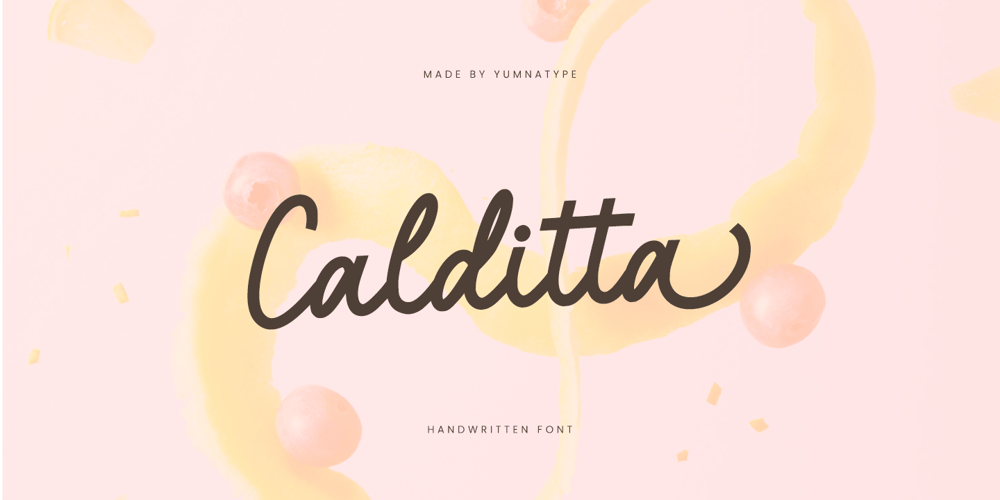
Calditta Font Family was designed by Donis Miftahudin and published by Yumna Type. Calditta contains 1 styles and family package options. Calditta is a charming handwritten font that brings a sense of warmth and personality to your designs. With letters delicately connected to each other, Calditta exudes a sense of fluidity and continuity, creating a seamless flow of text that captivates the eye.Crafted with consistent proportions, Calditta maintains a sense of balance and harmony throughout every stroke. Each letter is meticulously designed to maintain its connection with its neighboring characters, ensuring a cohesive and unified appearance across the entire text.Adding to its unique charm, Calditta features swinging ends at some letter terminals, giving it a whimsical and playful touch. These subtle details add a sense of movement and dynamism to the font, further enhancing its handwritten charm. In addition, enjoy the features here.Features: Ligatures Stylistic Sets Multilingual Supports PUA Encoded Numerals and Punctuations Calditta fits in headlines, logos, posters, flyers, branding materials, greeting cards, print media, editorial layouts, and many more designs. Find out more ways to use this font by taking a look at the font preview.Thanks for purchasing our fonts. Hopefully, you have a great time using our font. Feel free to contact us anytime for further information or when you have trouble with the font. Thanks a lot and happy designing.